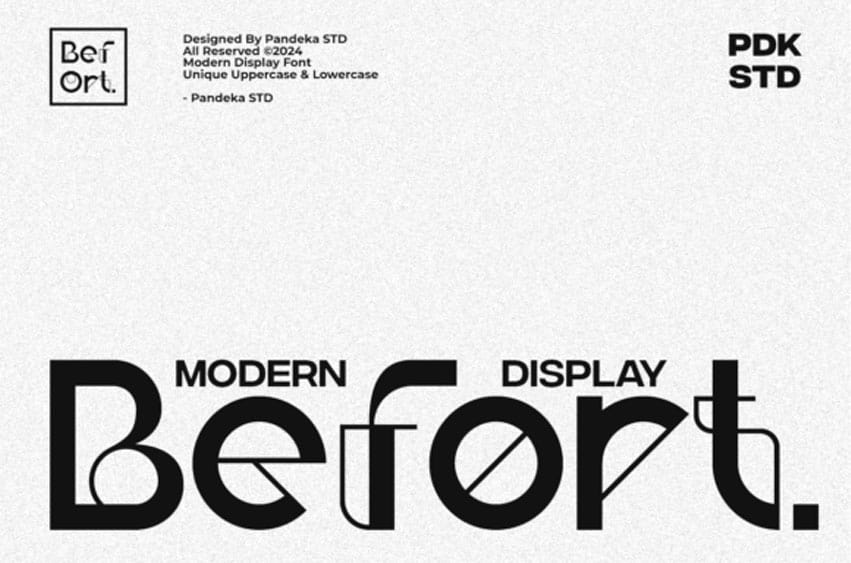
Befort Font is a sleek, modern display font that effortlessly blends straight lines with subtle curves to create a unique and sophisticated look! Beforts thin lines exude elegance and give a refined, upward impression.
It is perfect for website headers, logos, corporate projects, magazines, and modern-related branding. Its modern yet timeless design ensures your content stands out with a touch of class and sophistication.